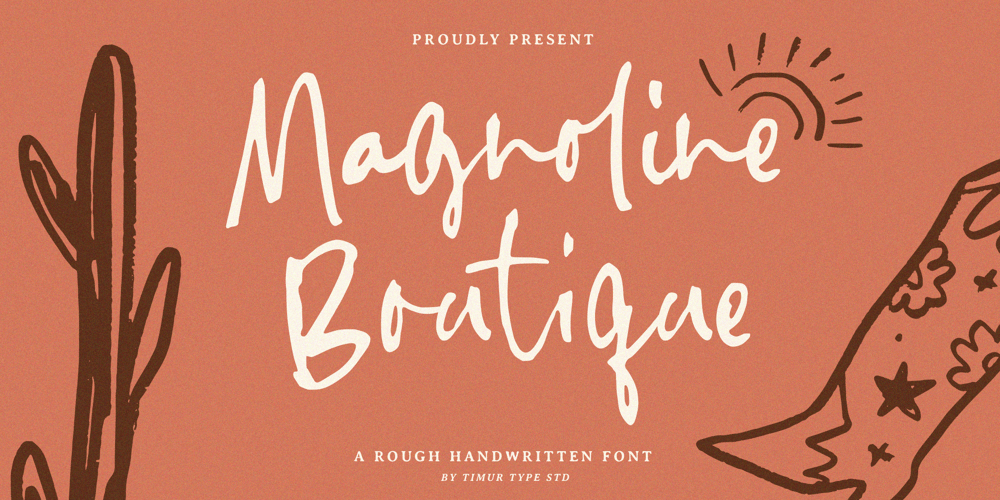
Magnoline Boutique Font Family was designed by Wara Sigit Tri Pamungkas and published by Timurtype. Magnoline Boutique contains 1 styles and family package options. Introduced by Timurtype Studio!Magnoline Boutique is a Rough Handwritten Font This font is a charming handwritten font with a raw and organic feel, perfect for adding a touch to your designs. It features an uneven, rough texture that mimics the imperfections of authentic hand-drawn lettering, making it ideal for projects that demand a natural and artisanal aesthetic.Magnoline Boutique Font also supports multilingualismEnhance your designs with our original fonts, feel free to comment or provide feedback, Enjoy the fonts 😊Thank You